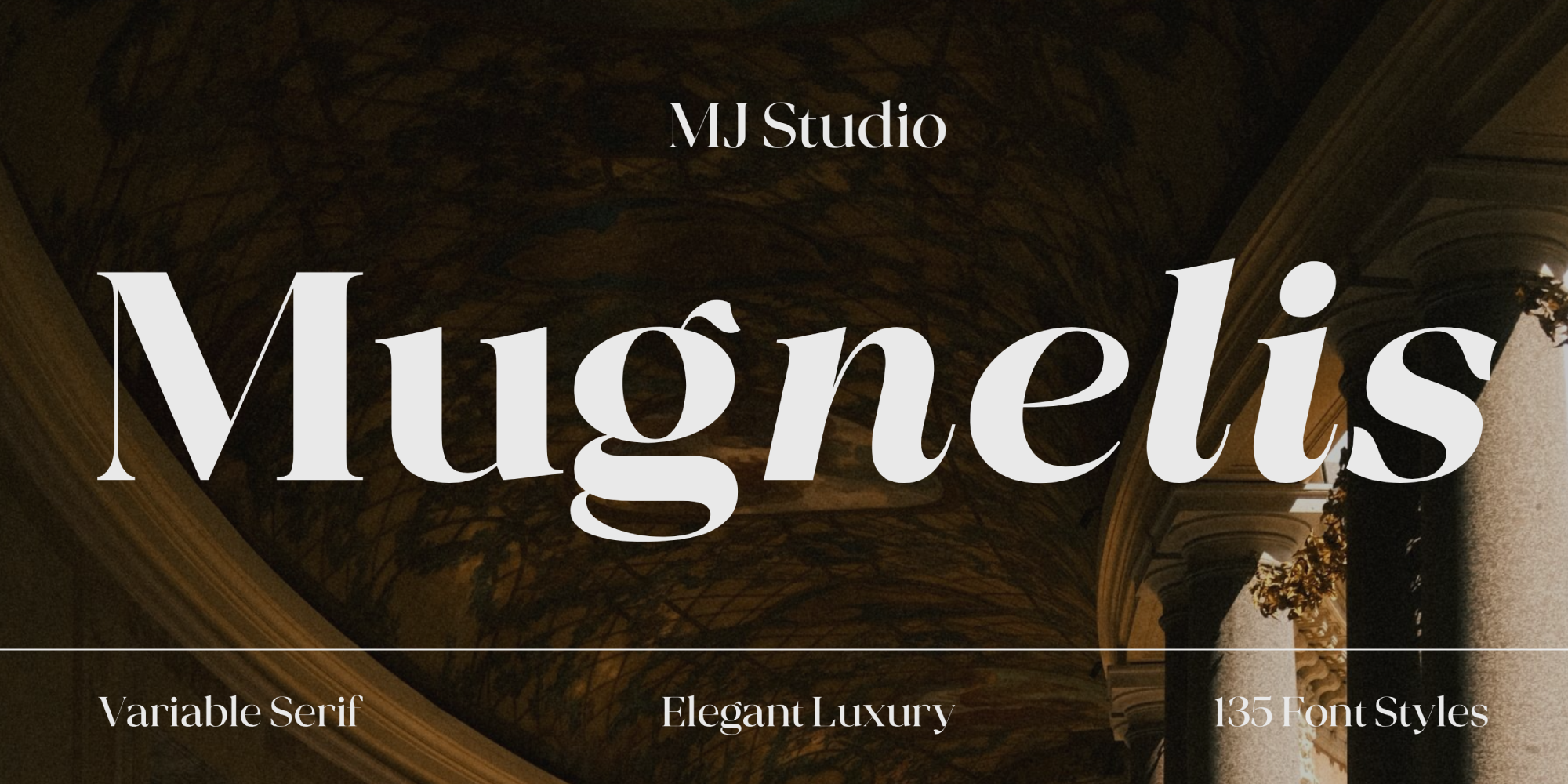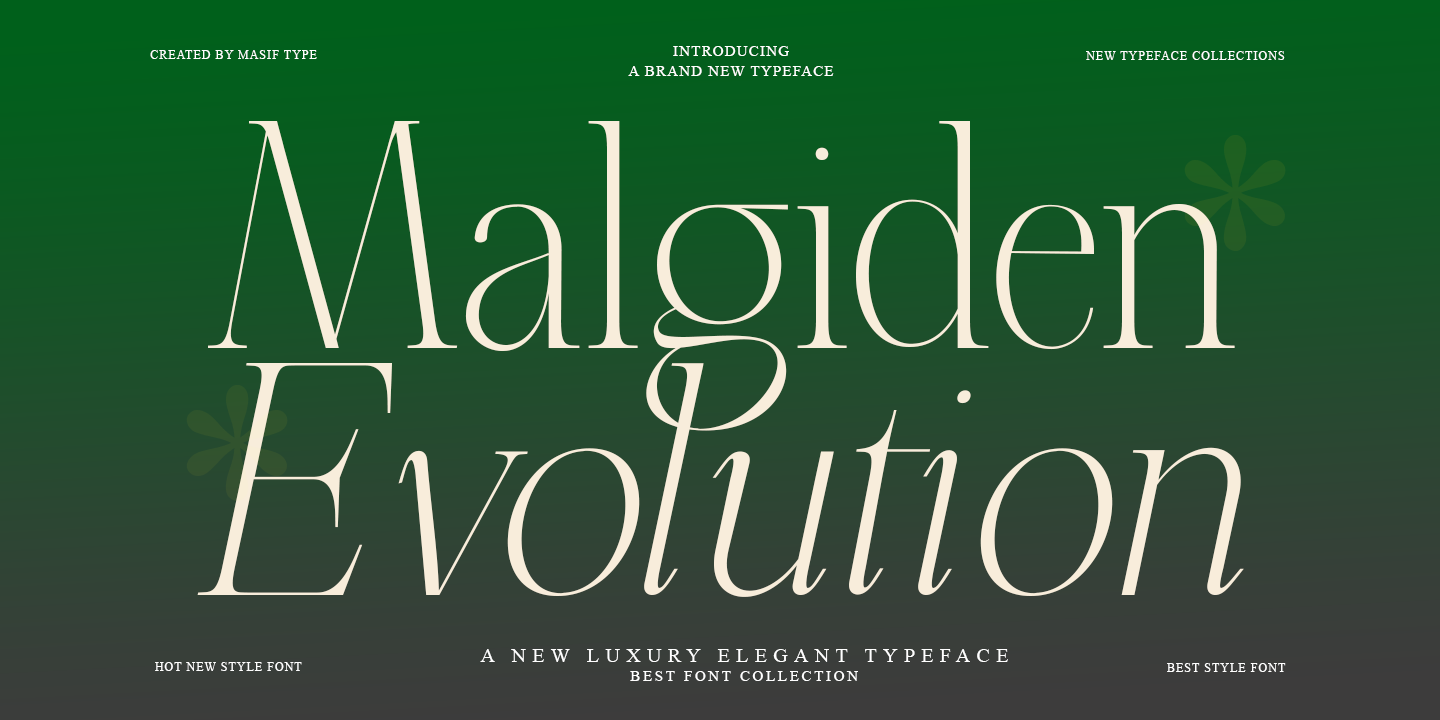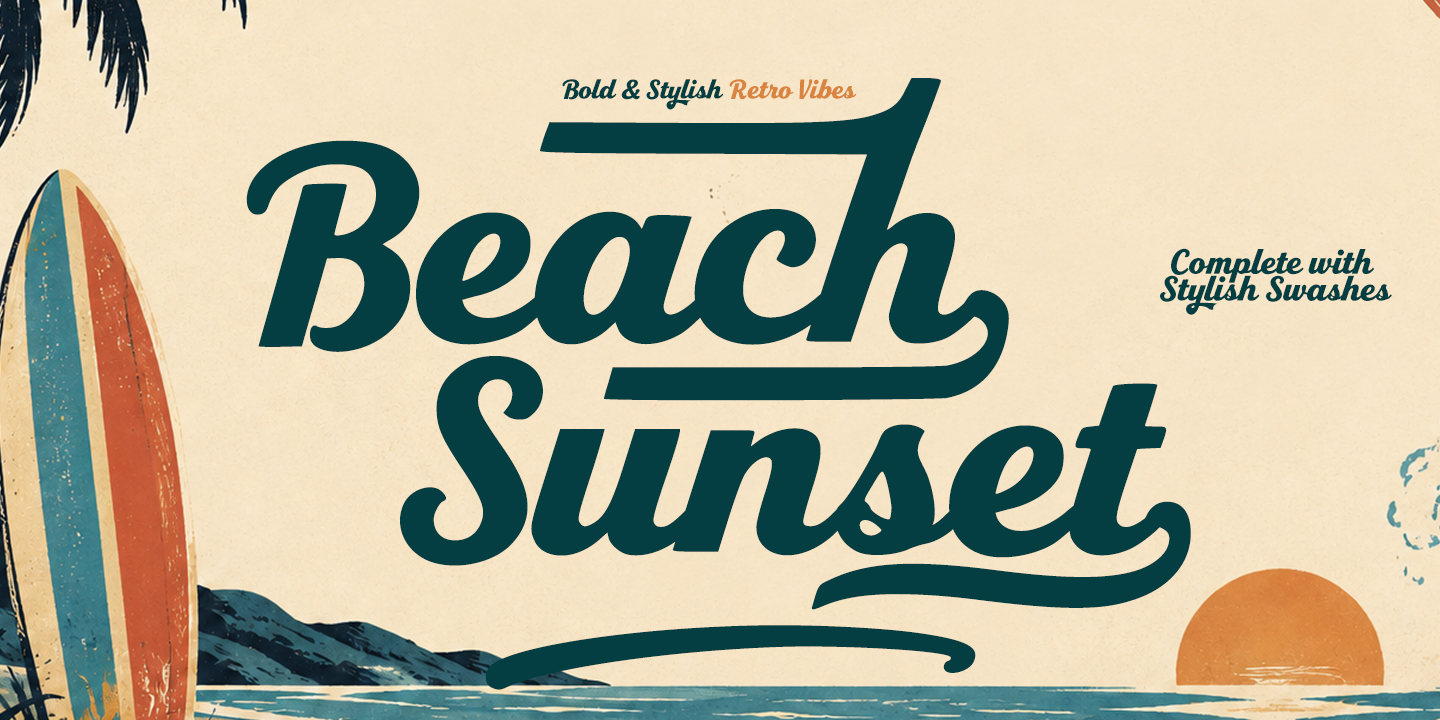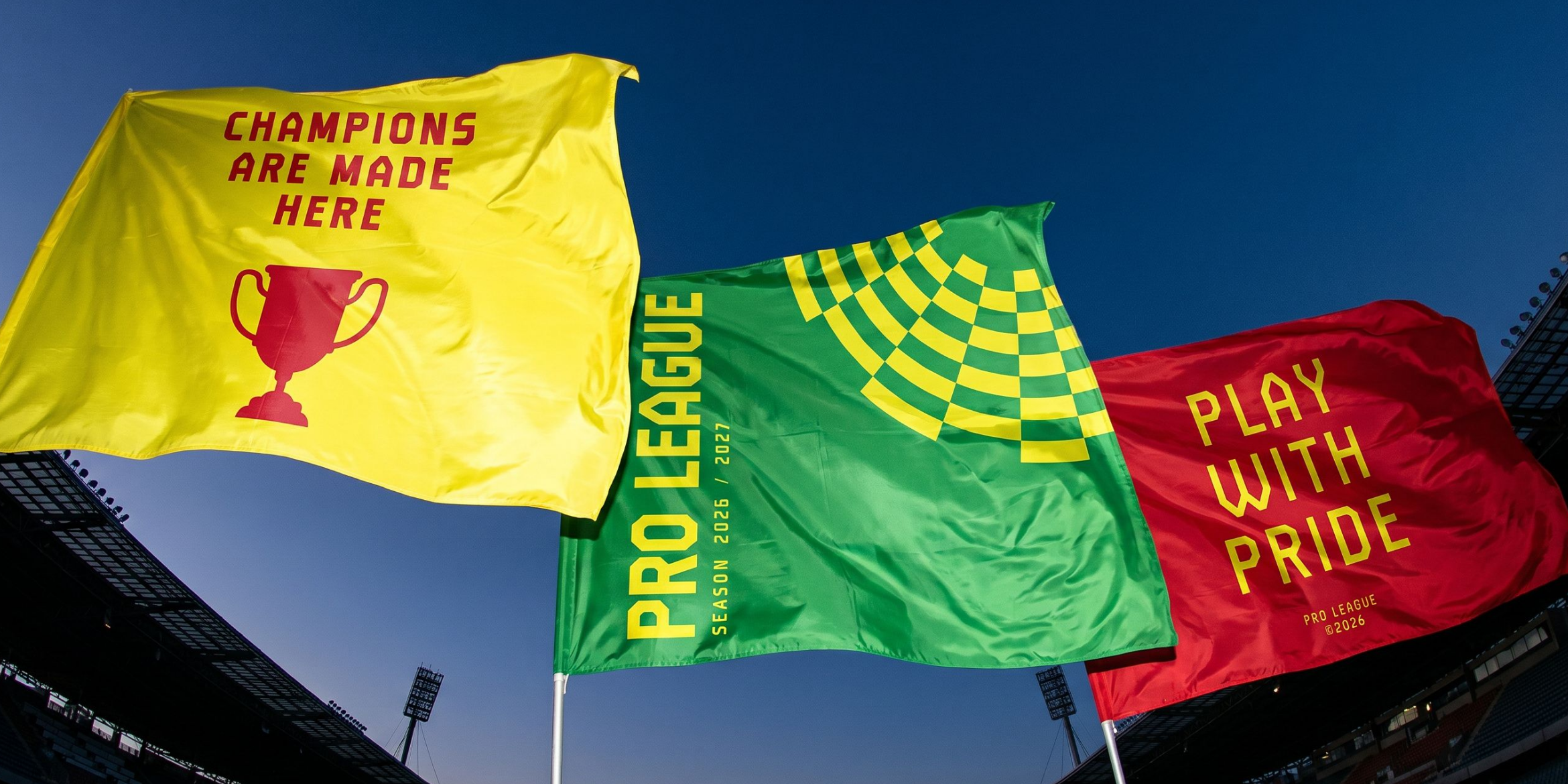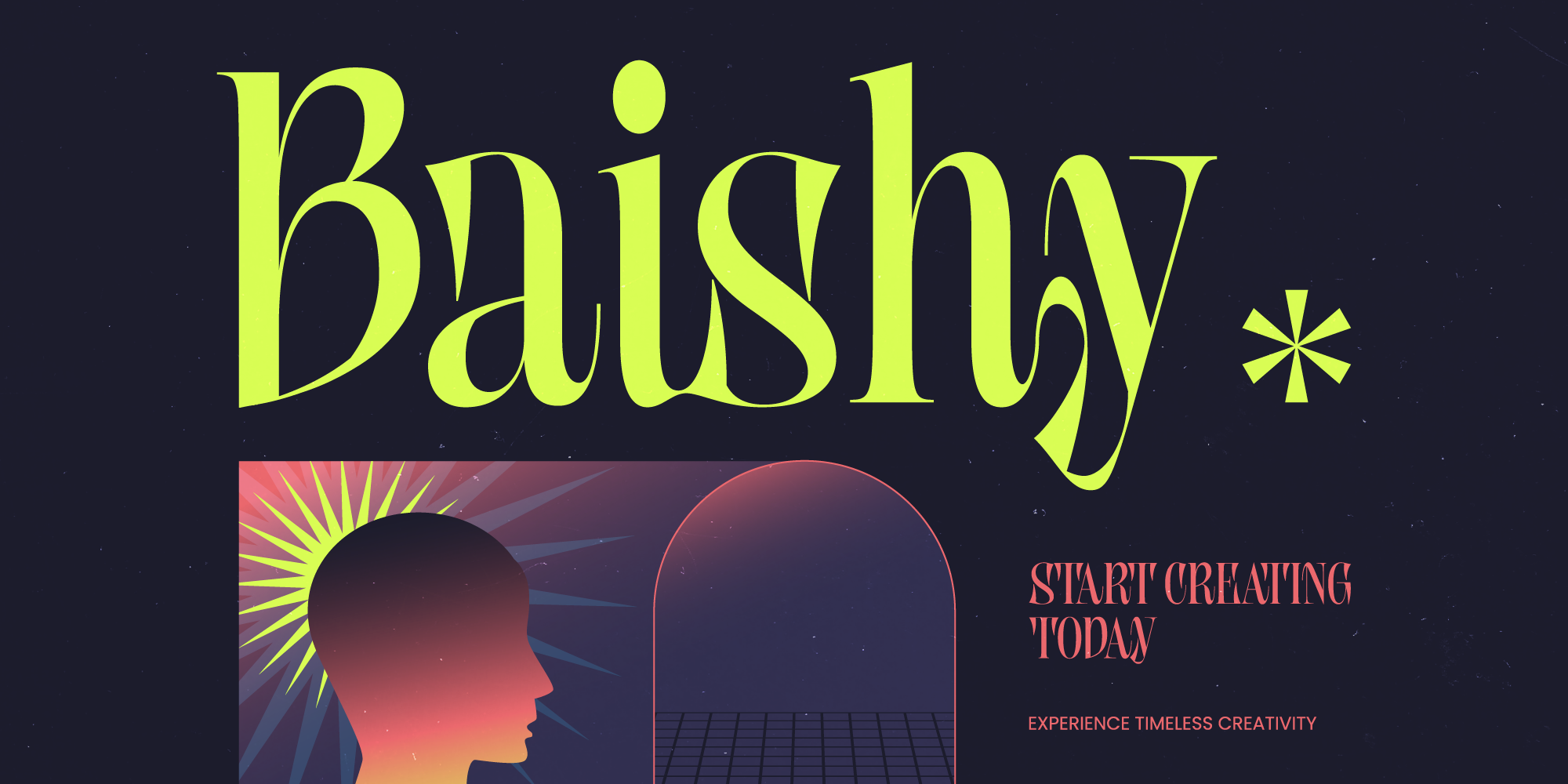
Mugnelis is a contemporary luxury serif family that combines timeless elegance with exceptional versatility. Featuring refined proportions, high-contrast strokes, and sculpted serifs, it includes 135 font styles, a Variable Font, 61 professionally crafted ligatures, stylistic alternates, and Latin Pro language support.
Designed for branding, editorial, fashion, packaging, publishing, and premium visual identities, Mugnelis delivers sophisticated typography with outstanding flexibility, readability, and lasting visual impact.
Built as a complete serif system, Mugnelis gives designers the freedom to create everything from elegant editorial layouts to distinctive brand identities with a single, cohesive type family.
Malgiden Evolution is a luxurious vintage serif typeface that captures the elegance of classic design with a modern retro twist. Featuring 9+ stylistic alternates and ligatures, this medium-contrast display font allows you to mix and match letterforms to create beautiful, unique curves and shapes in seconds, without requiring advanced design skills.
Bold yet refined, Malgiden Evolution delivers a timeless character for branding, logos, wedding invitations, social media graphics, advertising, packaging, product labels, photographic watermarks, stationery, and any project requiring sophisticated, high-impact typography. Its versatile design maintains excellent readability for both large display headlines and smaller editorial text.
Beach Sunset is a bold and stylish retro script font that captures the essence of laid-back coastal vibes, vintage surf culture, and warm summer sunsets. Its flowing letterforms showcase smooth curves, strong strokes, and expressive details, resulting in a confident yet relaxed aesthetic. The package includes extra swash elements that add decorative flourishes and stylish finishing touches. These swashes are provided separately, allowing for greater design flexibility as they can be placed freely with the lettering. This font is perfect for a variety of applications, including t-shirt designs, beach branding, logos, posters, packaging, signage, stickers, social media graphics, merchandise, and retro summer artwork.
Zovelia is a geometric sport display typeface built for maximum visual impact. The letterforms are constructed on a tall, condensed frame with strong vertical emphasis, giving every word a stacked, powerful presence, ideal for jersey numbers, scoreboards, and stadium signage.
Elevate your creative vision with a typeface that embodies sophisticated modernism.
Baishy - Modern Serif Display is a masterpiece of contemporary typography, blending high-contrast strokes with sharp, refined serifs to create a visual impact that is both timeless and trendy. Its unique balance of dramatic proportions offers a sense of high-end luxury and artistic flair, making it an essential asset for designers seeking to make a bold statement in every layout.